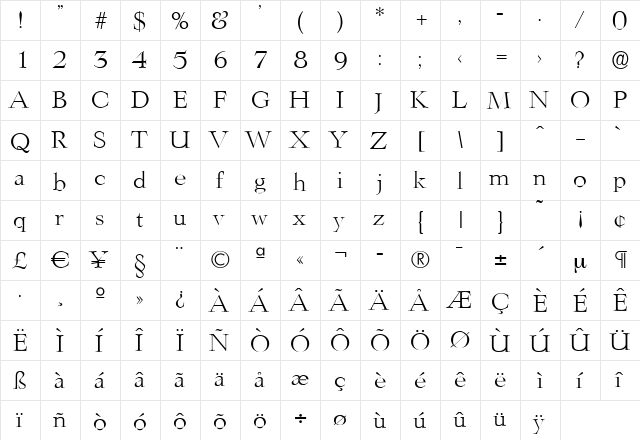
PhillipBecker-Light Regular
Design Context for PhillipBecker-Light Typeface
PhillipBecker-Light offers clean, dependable letterforms without strong stylistic allegiance, making it a practical choice for designers who need flexibility. The delicate stroke weight brings airiness and refinement to layouts.